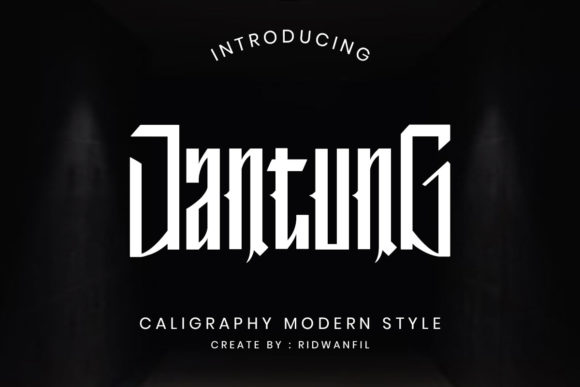
Dive into the world of ancient calligraphy with Jantung, a striking blackletter font that oozes elegance and charm. This captivating typeface, lovingly crafted by the talented Ridwanfil, transports you back to the days of engrossed manuscripts and grandiose signages, evoking a sense of timelessness and sophistication.
Jantung is not just a font; it's a portal to a bygone era, where words held a profound significance and artistry was paramount. With its graceful curves, sharp edges, and intricate details, this font exudes a classic charm that never fades. Its bold strokes dance across the page, leaving behind a trail of visual delight.
Imagine your designs adorned with Jantung's timeless beauty. Logos, posters, invitations, branding material - anything you create will radiate a touch of class and distinction. Unleash your creativity and let Jantung's enchanting aura elevate your projects to new heights.
In a world saturated with monotony, Jantung stands out as a beacon of originality. Its blackletter style, inspired by the masters of old, brings a touch of intrigue and mystery to your designs. Whether you're a graphic designer seeking unique typefaces or a creative entrepreneur yearning for a distinctive brand identity, Jantung is your perfect companion.
With Jantung, you're not just downloading a font; you're embarking on a journey through history, embracing the artistry of the past to create something remarkable in the present. Each character is a testament to the enduring power of craftsmanship, ensuring that your words leave a lasting impression.